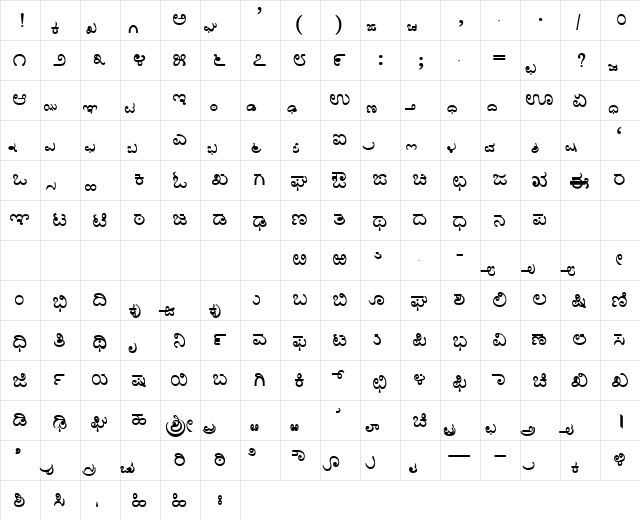
AkrutiKndPadminiDemi Medium Font Preview
AkrutiKndPadminiDemi Medium
Design Context for AkrutiKndPadminiDemi Typeface
AkrutiKndPadminiDemi takes a measured approach to typography — its balanced proportions and neutral character make it a reliable workhorse for both digital and print work.